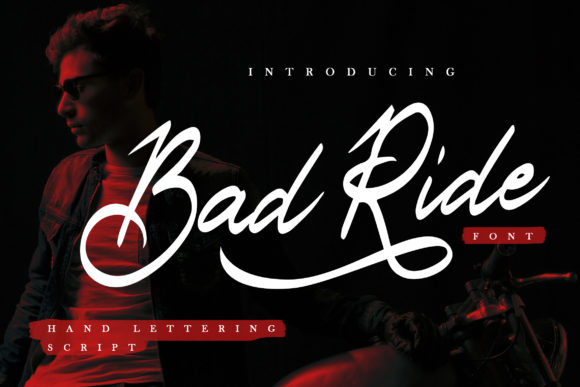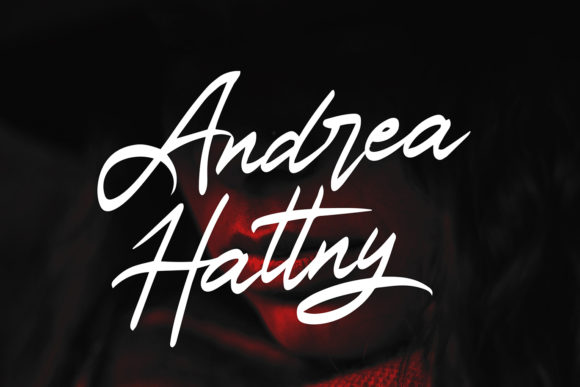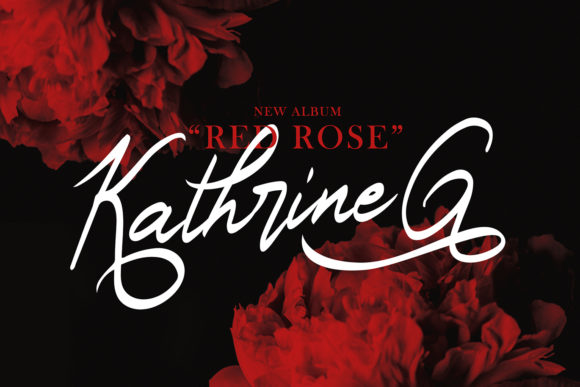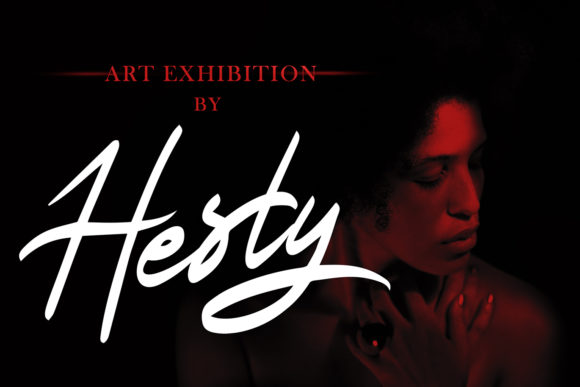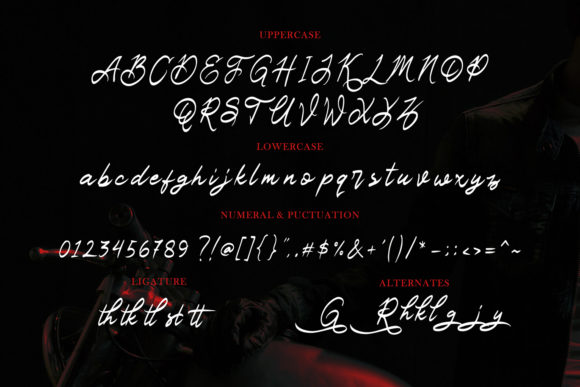
HomeScript FontsBad Ride Font Script Fonts Bad Ride Font FacebookXPinterestWhatsApp Bad Ride Font Poster 2 Bad Ride Font Poster 3 Bad Ride Font Poster 4 Bad Ride Font Poster 5 About Bad Ride Font Bad Ride is a fun and cool handwritten font with strong feel. Use it to add a powerful look to any design project. DOWNLOAD ON CREATIVE FABRICAThis font is sold and delivered by Creative Fabrica. Font Canyon may earn a commission if you buy through this link. People also explored Jubilee Font Nature Boho Font Simplywhiz Font Cake MardiParty Roast Beef BTN Seulanga Font Anallop Font Nft Cypher Font 348 0 TagsBad Ride Font Previous articleBrulle FontNext articleBedec Font LEAVE A REPLY Cancel reply Comment: Please enter your comment! Name:* Please enter your name here Email:* You have entered an incorrect email address! Please enter your email address here Website: Save my name, email, and website in this browser for the next time I comment. Personal Use Free Capellen Personal Use Free Read more about this font Wintersoul Personal Use Free Read more about this font Rellista Script Personal Use Free Read more about this font Mariyam Personal Use Free Read more about this font BLOG Best Fonts for YouTube Videos: Make Your Thumbnails Stand Out Best Fonts for YouTube Videos: Make Your Thumbnails Stand Out Choosing the right font can make a massive difference in how your YouTube videos perform.... Modern Sans-Serif Fonts That Brands Love in 2025 Top 10 Handwritten Fonts That Elevate Your Designs Top 7 Google Fonts Alternatives for Faster and Privacy-Friendly Web Design (2025)